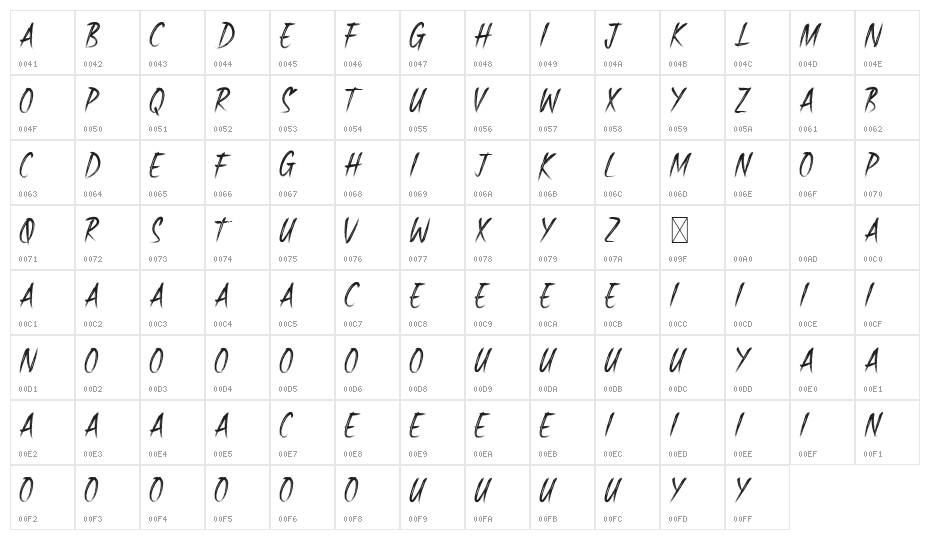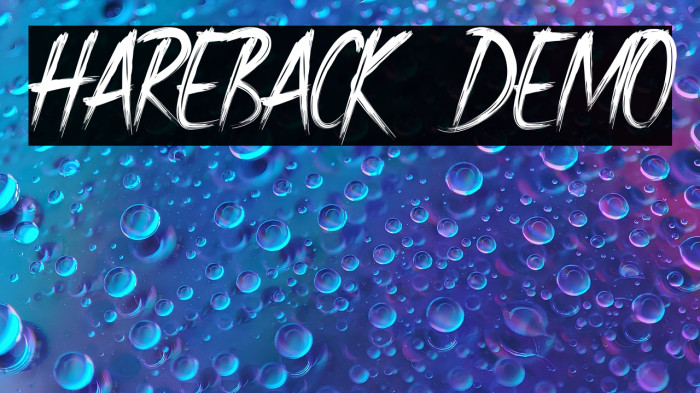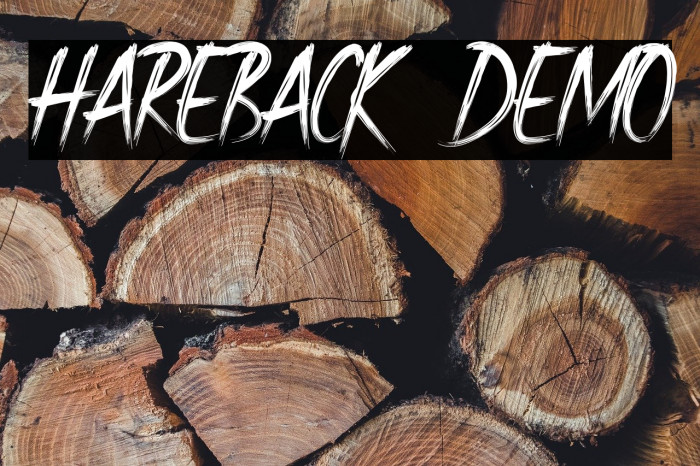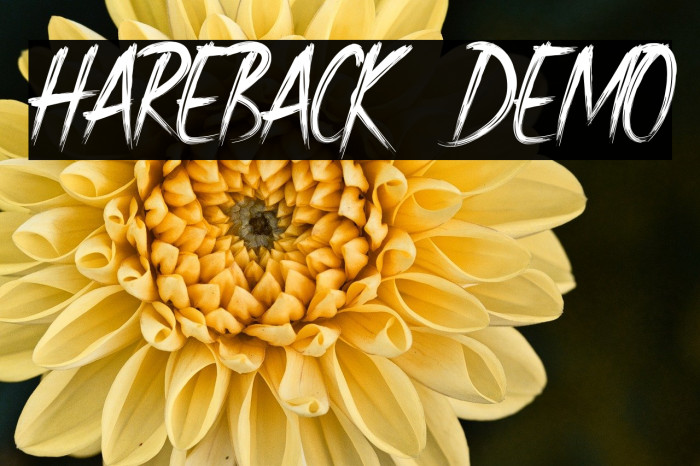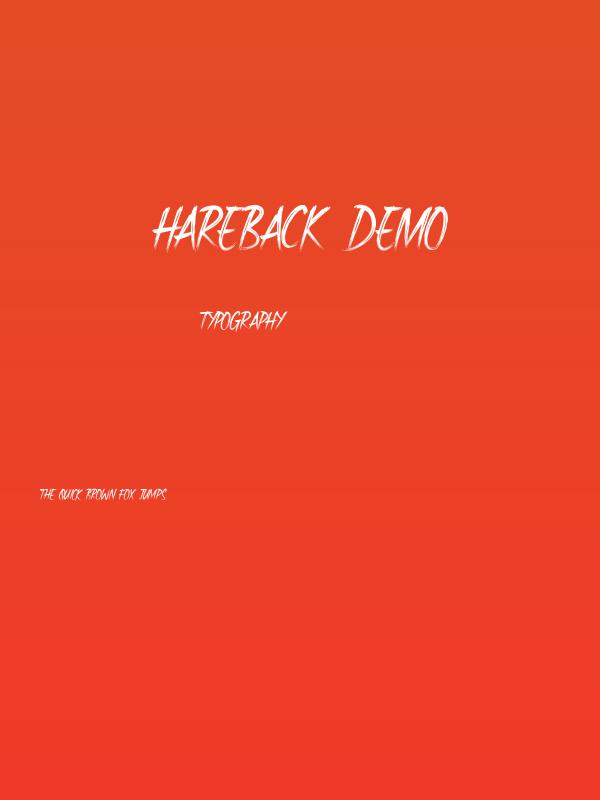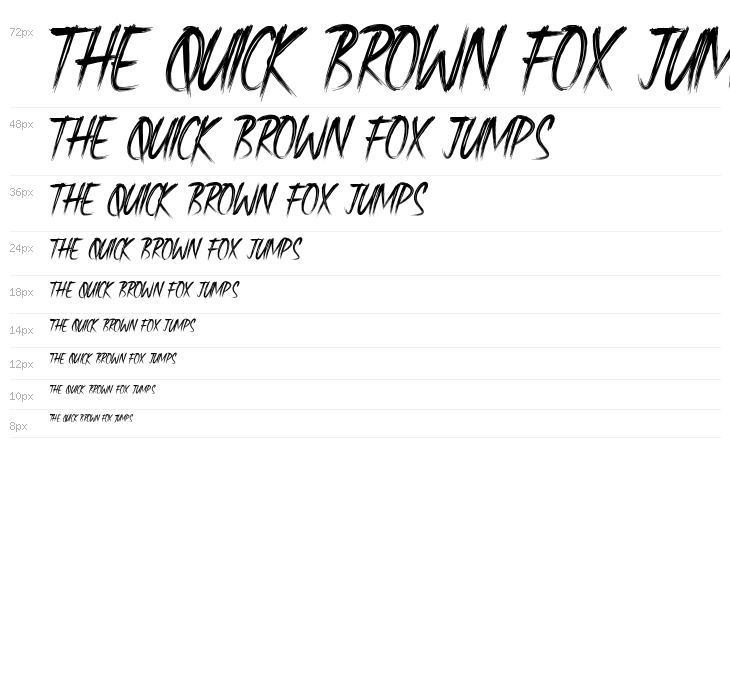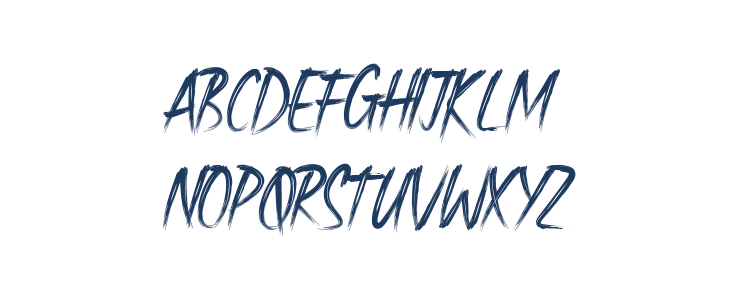
Hareback Demo Font
Hareback Demo Description
This font features a dynamic and energetic brush script style, characterized by its sharp, angular strokes and a sense of movement. The letters are crafted with a rough, textured appearance, giving them a hand-painted feel. The uppercase and lowercase letters maintain a consistent style, with elongated strokes and a slight slant, enhancing the font's fluidity. The numerals and special characters are designed to match the overall aesthetic, ensuring a cohesive look across all text elements. This font's unique style makes it stand out, providing a bold and artistic touch to any design.
| Proposed Projects | Ideal for projects requiring a bold, artistic touch such as posters, branding, packaging, and creative headlines. |